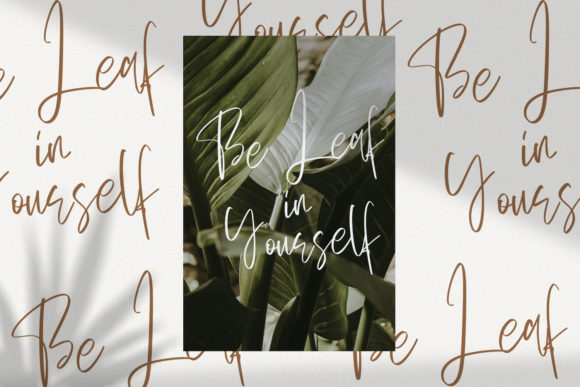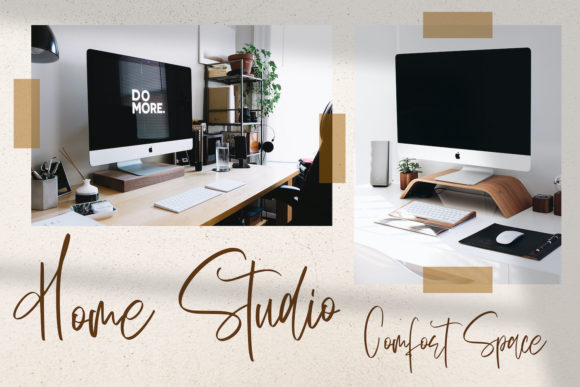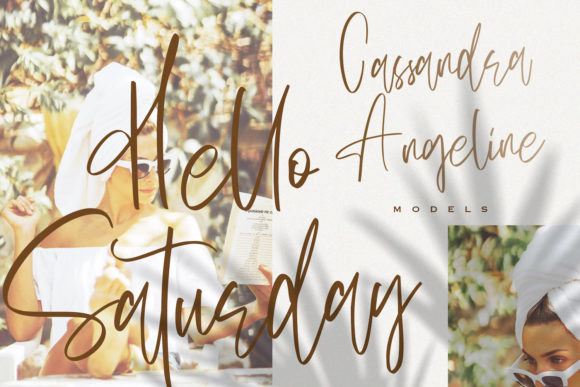
Introduction to Sellviny Queen Font
As I sat down to design a custom wedding invitation for a close friend, I found myself struggling to capture the perfect blend of elegance and charm. That’s when I stumbled upon the Sellviny Queen Font, a game-changing design resource that has since become my go-to choice for adding a handwritten touch to every creative project.
With its beautiful, flowing script, Sellviny Queen Font is the perfect solution for designers seeking to elevate their designs to the next level. Whether you’re working on a high-quality logo, a set of business cards, or a heartfelt thank-you note, this font is sure to add a touch of sophistication and personality to your work.
Key Features of Sellviny Queen Font
- Unique characteristics include a regal and sophisticated feel, making it perfect for luxury branding and high-end design projects.
Honest Review: Sellviny Queen Font
I recently had the chance to try out the Sellviny Queen Font, and I must say, it’s been a game-changer for my creative project. This high-quality font is perfect for anyone looking to elevate their design game.
- ✨ High-quality design: The Sellviny Queen Font is incredibly detailed and visually appealing. It’s perfect for adding a touch of sophistication to your designs.
However, I do have a few limitations to mention: ⚠️ The font is only available in a limited range of weights and styles, which may not be ideal for designers working on complex projects. Additionally, the font may not be compatible with all software and systems.
Overall, I’m really impressed with the Sellviny Queen Font. It’s a fantastic design resource that’s perfect for anyone looking to add a touch of elegance to their designs. With its high-quality design and transparent background, it’s definitely worth checking out.
Tips for Getting the Most Out of the Sellviny Queen Font
To get the most out of the Sellviny Queen Font, use it in high-quality designs with a transparent background. This font is perfect for creative projects that require a unique and elegant touch.
The Sellviny Queen Font is ideal for:
- Branding and marketing materials.
- Photography and design portfolios.
Alternatives to Sellviny Queen Font
The Great Vibes Font is a beautiful, elegant script font that’s perfect for creative projects that require a touch of sophistication. It’s available for free download and features a transparent background, making it ideal for use on images and backgrounds. This font is great for designers who want to add a high-quality, handwritten feel to their designs.
Great Vibes Font compares to Sellviny Queen Font in its elegant and sophisticated look, but it’s more versatile and suitable for a wider range of designs. It’s also a more free-flowing script font, making it perfect for creative projects that require a lot of movement and energy.
The Pacifico Font is a beautiful, modern script font that’s perfect for designers who want to add a touch of elegance and sophistication to their creative projects. It features a transparent background and is available for free download, making it a high-quality design resource. This font is great for designers who want to create beautiful, eye-catching headlines and titles.